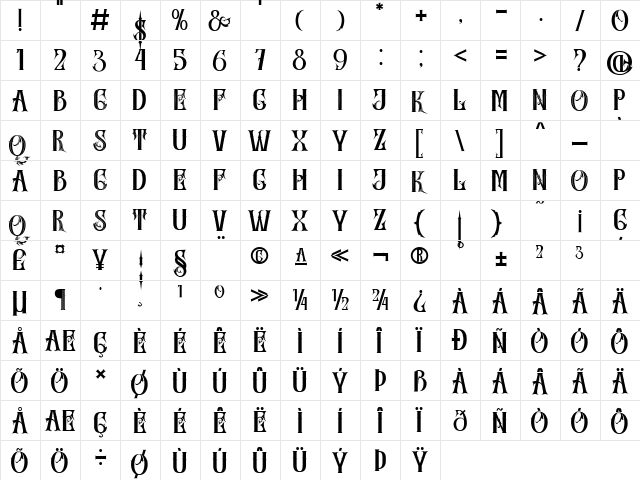
SkinerScort1 Regular
Design Context for SkinerScort1 Typeface
SkinerScort1 is a composed and adaptable typeface that performs quietly and consistently across a wide range of design contexts.